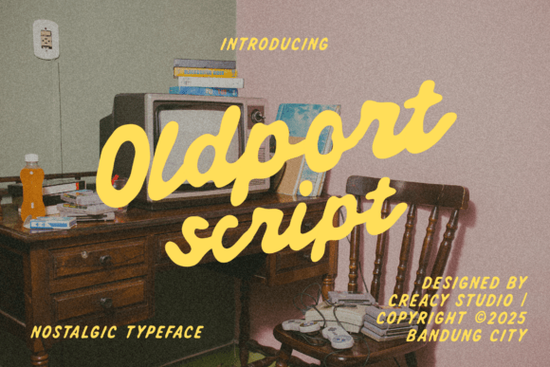
If you're working on a design that calls for warmth, nostalgia, and a personal touch, Oldport Script is worth a closer look. This handwritten font blends vintage charm with modern readability making it ideal for everything from café menus to travel-themed social posts. Unlike overly ornate scripts that sacrifice legibility, Oldport Script keeps its curves fluid but clear, so your message still comes through, even at smaller sizes.
What kinds of projects work best with Oldport Script?
This font shines when you want to evoke a relaxed, inviting mood. Think lifestyle branding, boutique packaging, or hand-lettered-style quotes for print-on-demand products. It’s especially effective for businesses rooted in café culture, artisan goods, or retro travel aesthetics. The bold strokes give it presence in headlines, while the natural flow of lowercase letters makes it surprisingly versatile for short paragraphs or captions.
You’ll also appreciate that it includes full character sets uppercase and lowercase letters, numerals, punctuation and supports multiple languages. That means you can use it confidently across international projects without worrying about missing glyphs.
How does it compare to other display fonts?
Not all script fonts strike the same balance between personality and practicality. For example, if you’ve used something like grunge-style display fonts, you know they lean heavily into texture and edge but often at the cost of elegance. Oldport Script, by contrast, offers refinement without feeling stiff.
If your project needs more energy say, for sports or streetwear you might consider options like sport grunge fonts or athletic college fonts. But for soft, nostalgic, or artisanal vibes, Oldport Script fills a sweet spot that bolder or rougher typefaces can’t replicate.
And while seasonal designs might call for something breezy like pretty summer fonts, or edgy like Sicko Font, Oldport Script remains timeless usable year-round for brands that value consistency and character.
Because it’s a single-style script (not a variable or multi-weight family), it’s straightforward to implement. Just install it like any system font, and you’re ready to go. No confusing alternates or ligature toggles though that simplicity is part of its appeal for quick-turnaround projects.
Tips for using Oldport Script effectively
- Avoid all-caps: Like most scripts, it’s designed to flow with mixed case. Uppercase-only settings break its natural rhythm.
- Pair it wisely: Combine with a clean sans-serif (like Montserrat or Lato) for contrast. A minimalist body font lets Oldport Script take center stage without visual clutter.
- Use generous spacing: Slightly increased letter-spacing (tracking) can enhance readability, especially in digital graphics.
- Test at real-world sizes: If you’re printing business cards or stickers, check how it renders at actual scale some delicate curves may blur if too small.
Remember: this font isn’t meant for long blocks of text. Its strength lies in headlines, logos, short quotes, labels, and accent typography. Treat it like handwriting personal, intentional, and used with purpose.
Who should consider this font?
Small business owners creating their own branding, Etsy sellers designing printable wall art, or social media managers crafting cohesive feeds will find Oldport Script easy to integrate. Crafters making custom mugs, tote bags, or greeting cards can add instant personality without complex design skills. Even hobbyists experimenting with digital journaling or scrapbooking templates will appreciate its approachable elegance.
It’s not a “one-size-fits-all” font but that’s a good thing. Its specificity makes it memorable. When your audience sees it, they’ll associate it with warmth, authenticity, and a little bit of old-world charm.